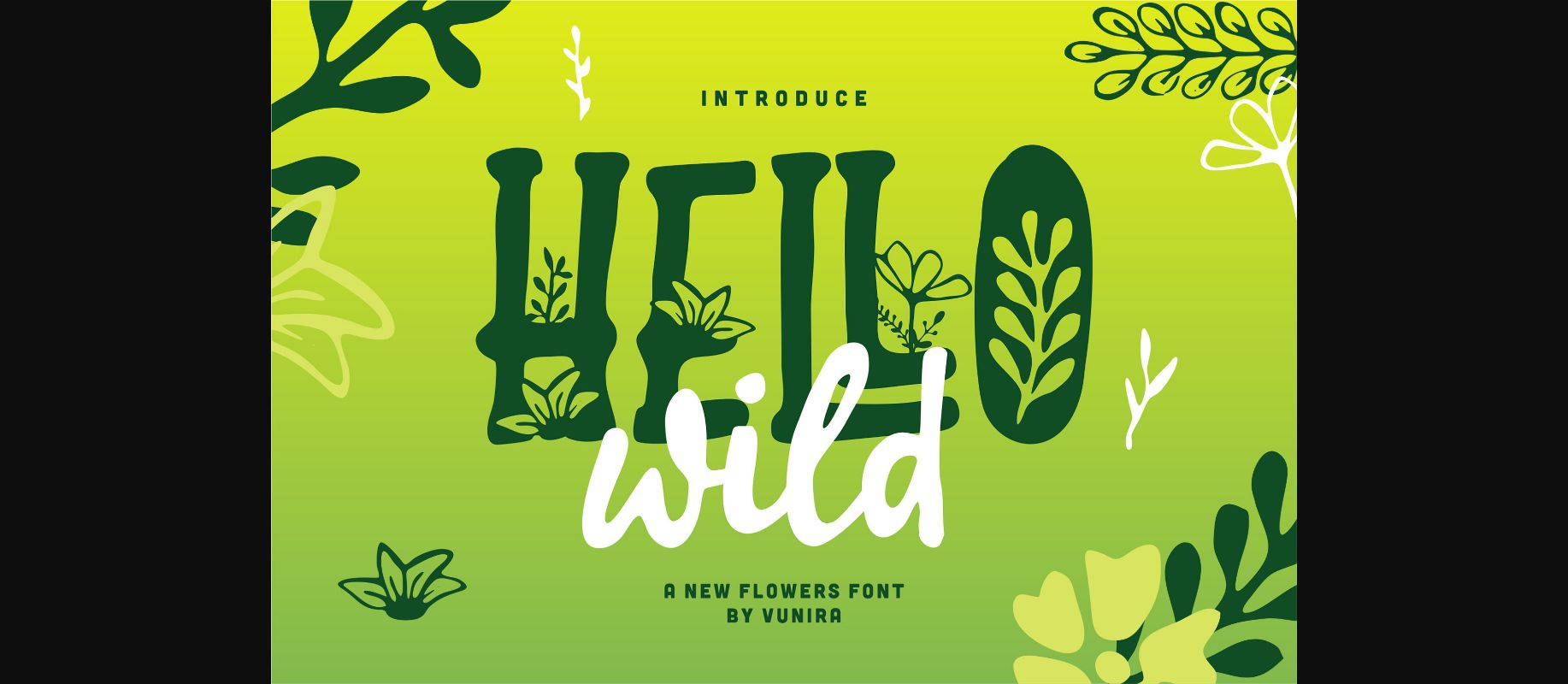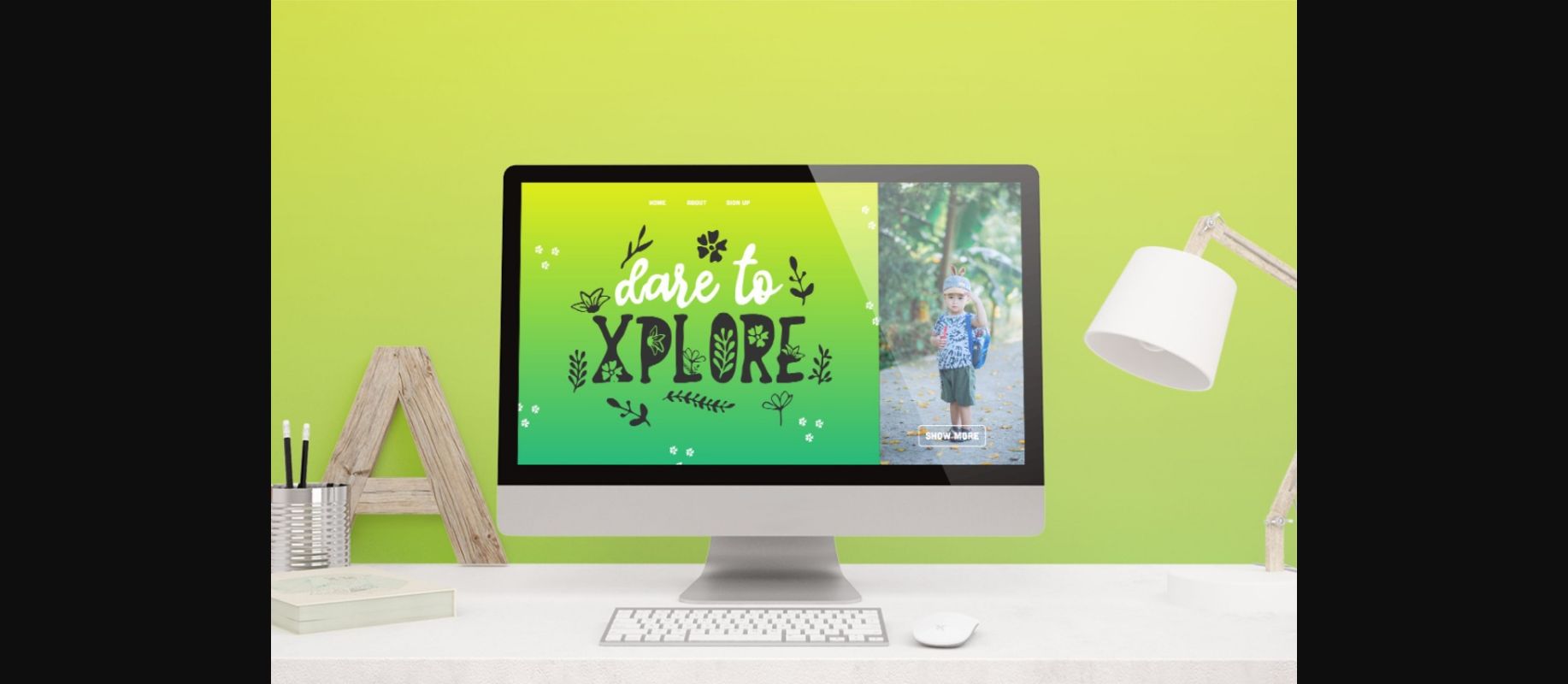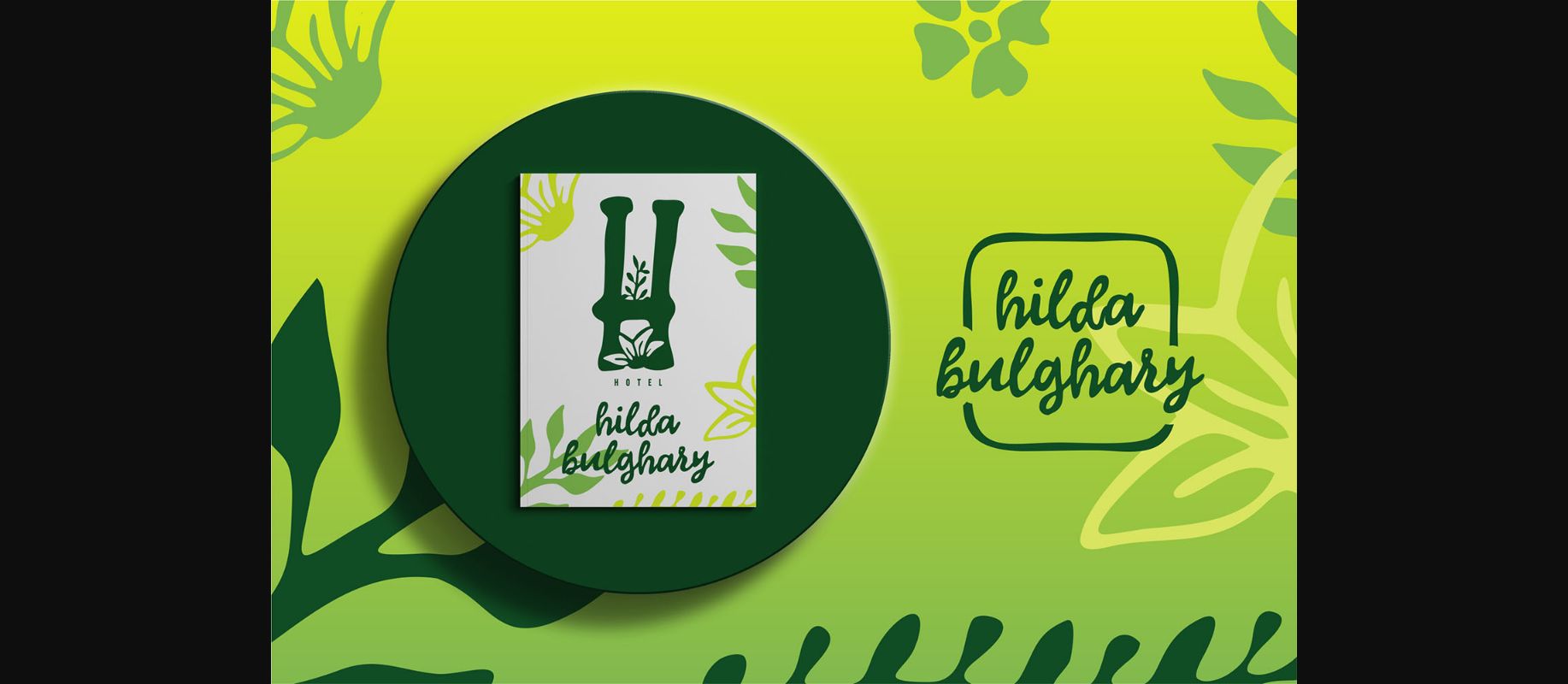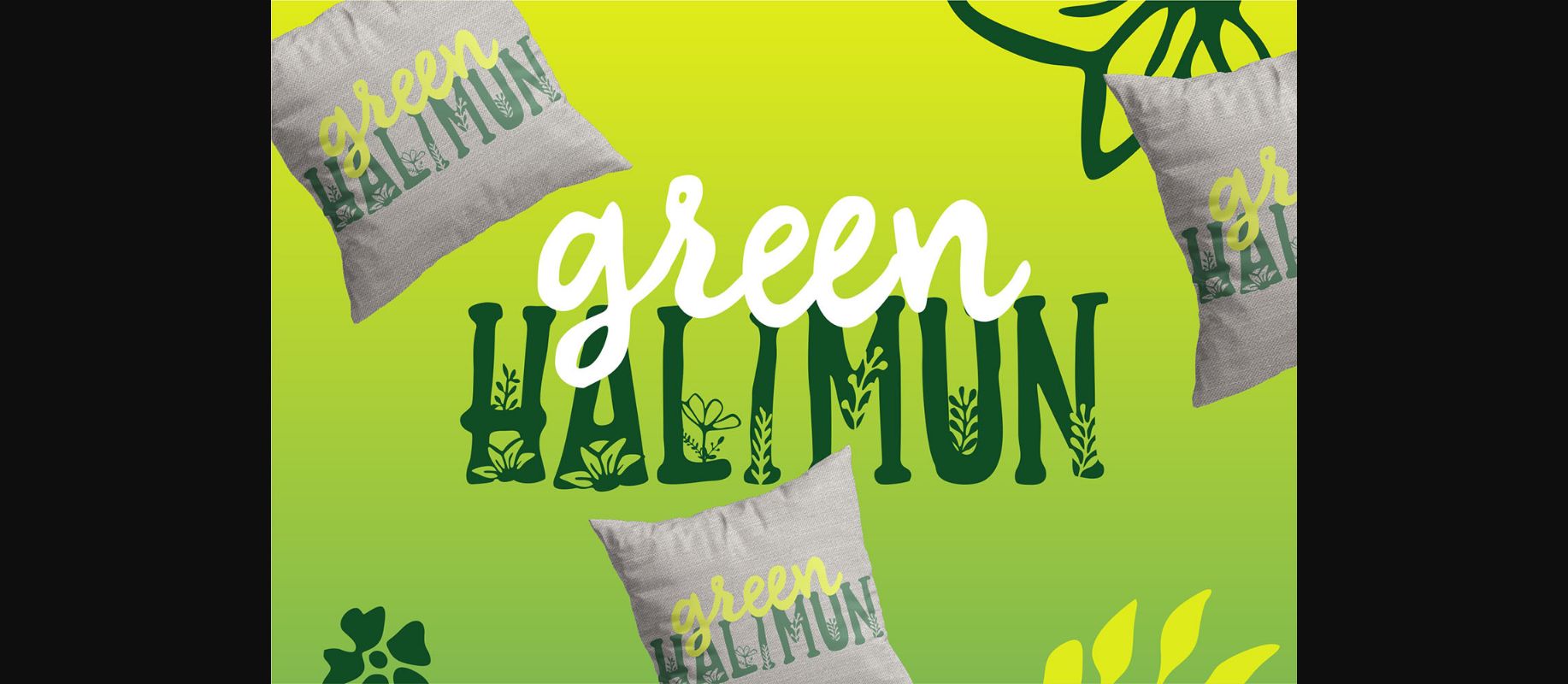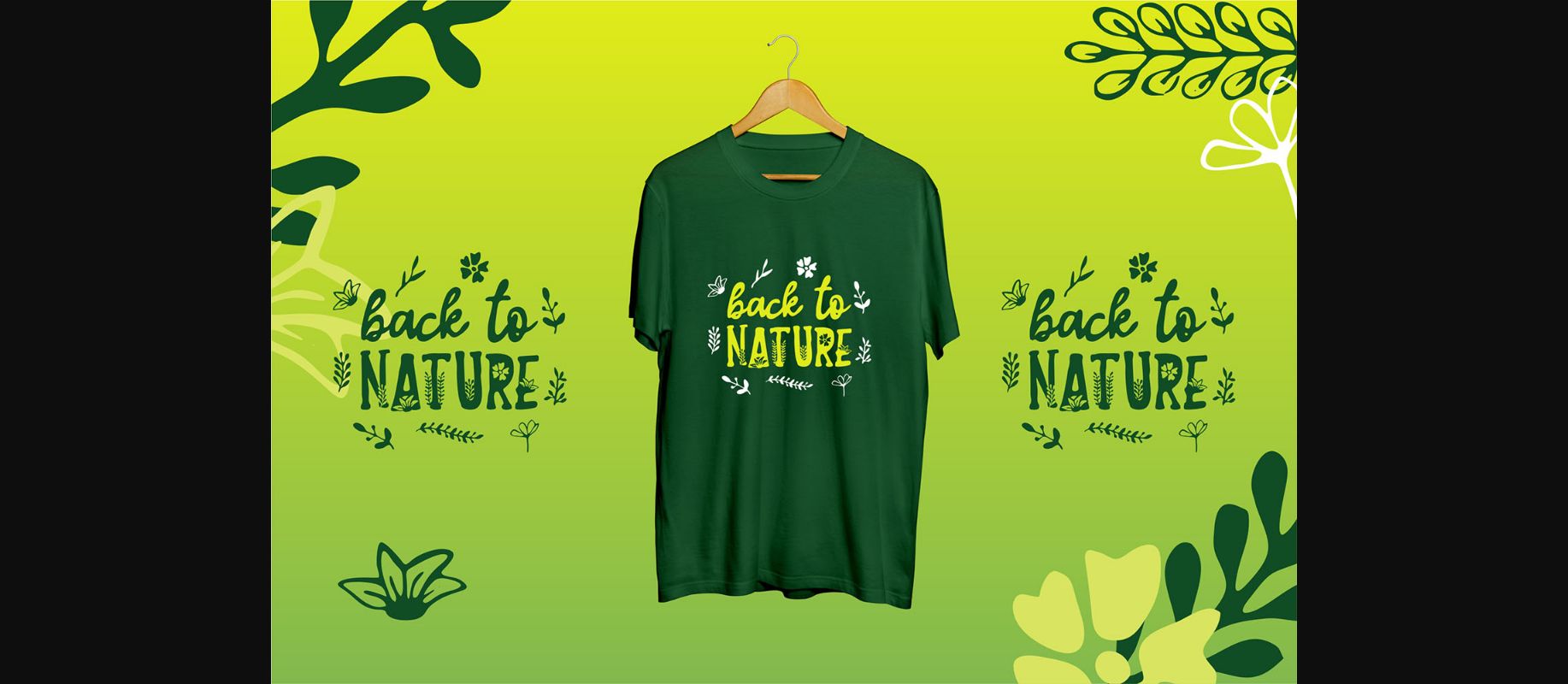
About Hello Wild Font
Hello Wild is an unique decorative font. Whether you’re using it for crafting, digital designing, presentations, or greeting card making, it’s perfect!